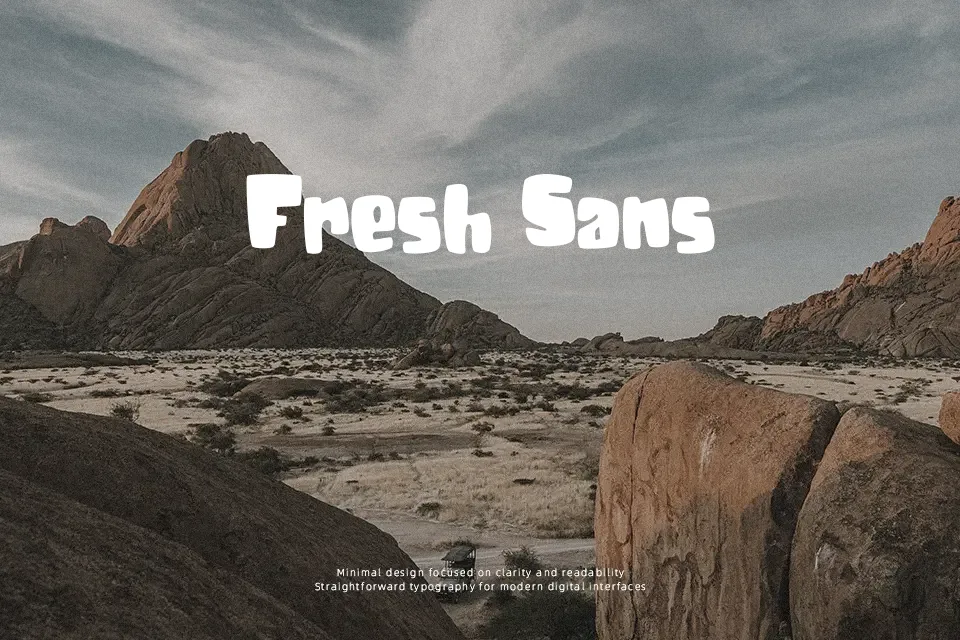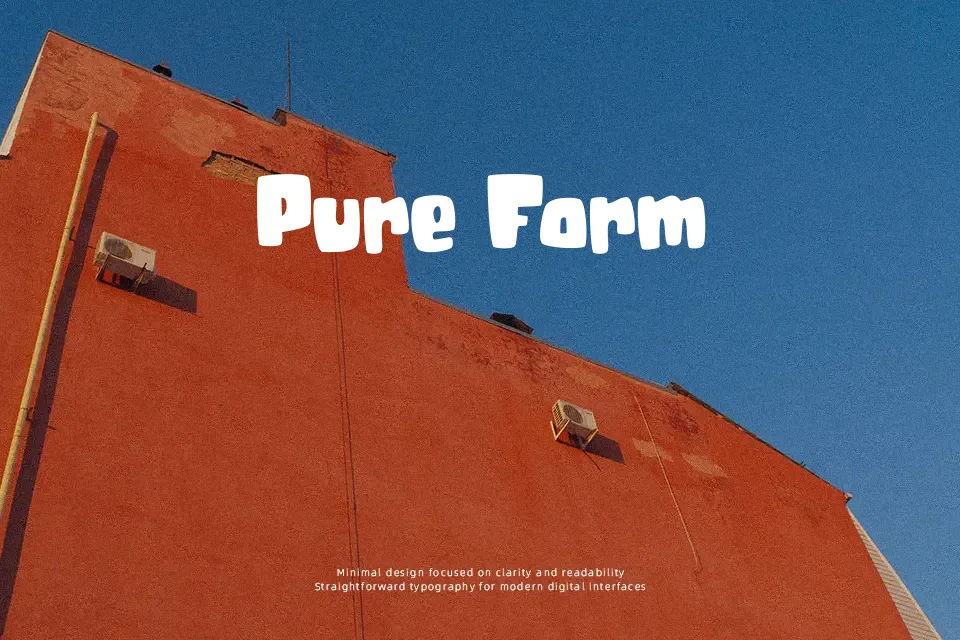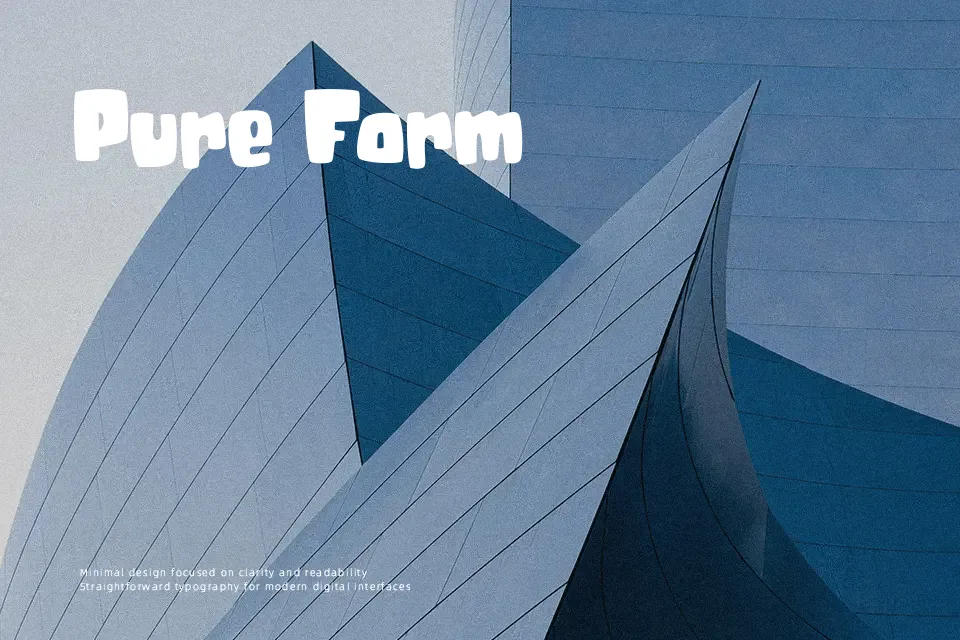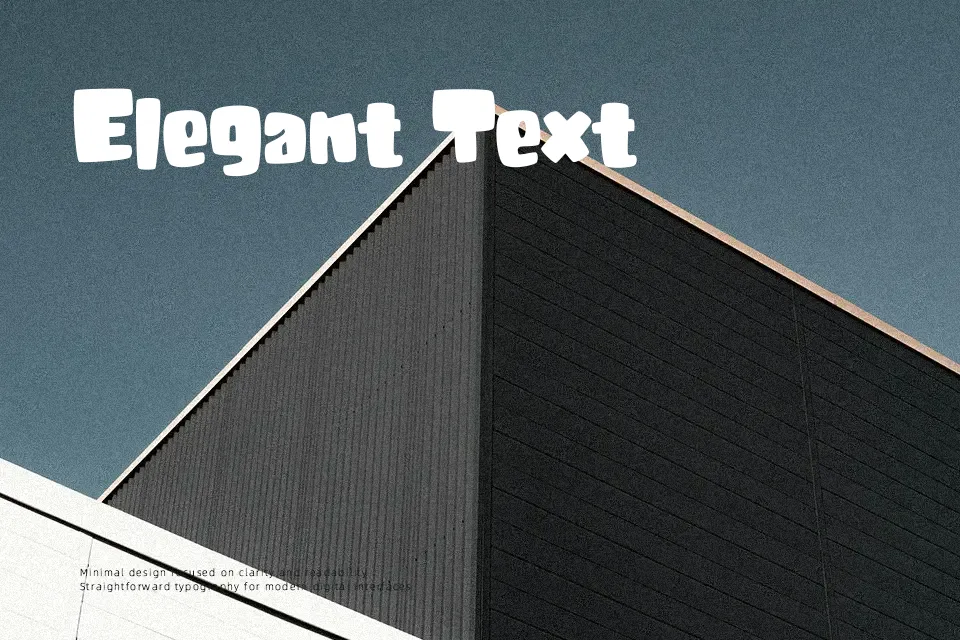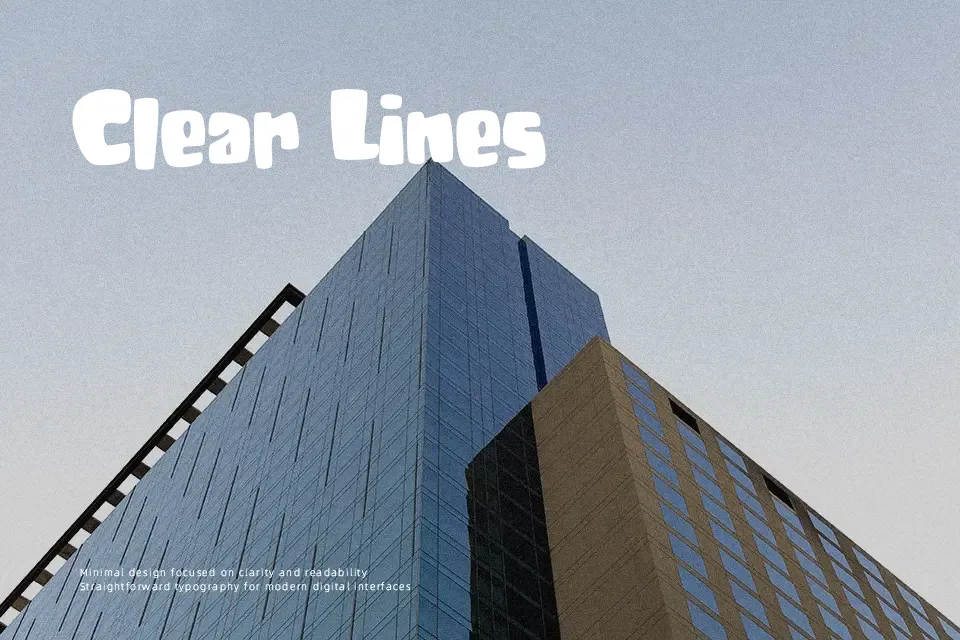
Tricky Jimmy Font
Designed by Tokokoo Studio
Tricky Jimmy Font showcases substantial stroke thickness combined with smoothly rounded terminals and a jaunty, irregular baseline rhythm. Its plump letterforms exhibit minimal stroke contrast, creating a dense silhouette that commands attention across banner headlines and mobile game interfaces. Tight character spacing reinforces the cohesive, comic-inspired aesthetic, keeping multi-letter combinations visually bound together. The bold letterforms maintain strong visibility in large display text, making the design particularly effective for youth-oriented merchandising and video thumbnails. However, the heavy visual weight and compact counters significantly restrict legibility at small sizes, rendering the typeface impractical for sustained body text or detailed editorial paragraphs.
Best For: children’s book covers, mobile game title screens, animated cartoon posters
Not Ideal For: long body text paragraphs, formal business documents, small mobile interface captions